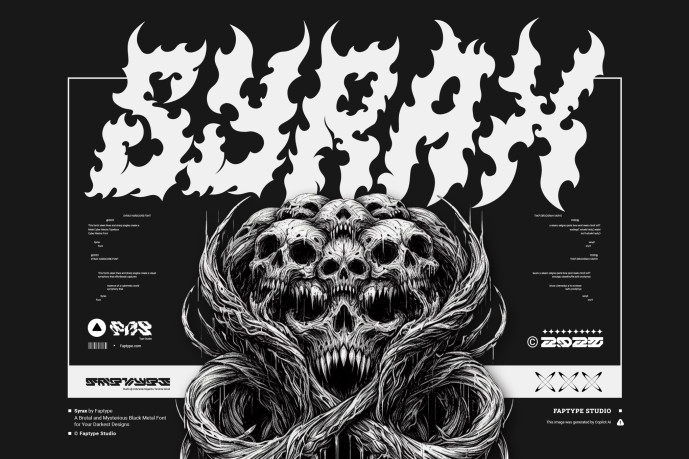
Syrax Font
Designer: Faptype
Syrax – Brutal Black Metal Typeface for Extreme Design
Syrax is a savage and unrelenting death/black metal font forged in darkness and chaos. Designed with sharp, chaotic strokes and a blood-soaked aesthetic, Syrax delivers a raw, aggressive visual impact that embodies the true spirit of underground extreme music. This font isn’t just a tool—it’s a weapon for visual destruction.
Built for bands, labels, and creators who demand intensity, Syrax is the perfect match for artwork that screams defiance, darkness, and power. Whether you’re crafting album covers, vinyl sleeves, brutal gig posters, or hardcore designs, Syrax ensures your message is loud, vicious, and unforgettable.